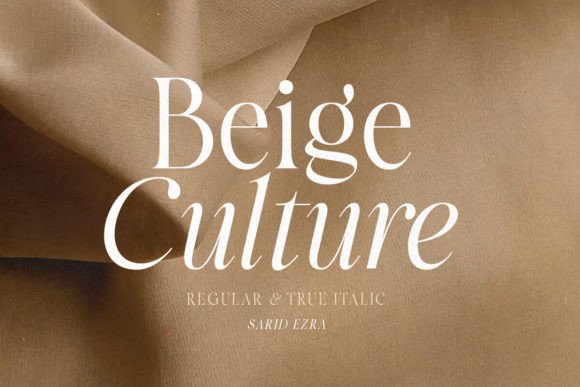
Introducing Beige Culture Font: A Timeless Serif Family with a Modern Twist
In the world of typography, a well-designed font can make all the difference in creating a lasting impression. For those seeking a classic serif font with a modern, luxurious, and glamorous look, Beige Culture Font is an excellent choice. This versatile font family is perfect for a wide range of applications, from wedding invitations and logos to branding and display purposes.
The Characteristics of Beige Culture Font
Beige Culture is a classic serif font family that exudes elegance and sophistication. Its modern design ensures that it remains fresh and relevant, making it suitable for various uses. The font comes with a true italic version, which adds to its versatility and allows users to create a range of visual styles.
Key Features of Beige Culture Font:
- Classic Serif Design: Beige Culture boasts a traditional serif design that evokes a sense of timelessness and luxury.
- Modern and Glamorous Look: The font’s modern twist ensures that it looks fresh and sophisticated, making it perfect for high-end applications.
- True Italic Version: The inclusion of a true italic version adds to the font’s versatility, allowing users to create a range of visual styles.
- Multi-Language Support: Beige Culture supports multiple languages, making it a great choice for global brands and projects.
Use Cases for Beige Culture Font
Beige Culture Font is an incredibly versatile font family that can be used for a wide range of applications. Here are some examples of how you can use this font:
Wedding Invitations and Stationery
Beige Culture’s elegant and sophisticated design makes it perfect for wedding invitations, stationery, and other formal events.
Logo and Branding
The font’s modern and luxurious look makes it an excellent choice for logos and branding projects, particularly for high-end brands and luxury goods.
Display and Headings
Beige Culture’s classic serif design and true italic version make it suitable for display purposes, such as headings and titles.
Why Choose Beige Culture Font?
With so many fonts available, why choose Beige Culture Font? Here are some reasons why this font family stands out:
Timeless Design
Beige Culture’s classic serif design ensures that it remains timeless and relevant, even as design trends evolve.
Versatility
The font’s true italic version and multi-language support make it incredibly versatile and suitable for a wide range of applications.
Luxurious and Glamorous Look
Beige Culture’s modern twist and elegant design make it perfect for high-end applications and luxury brands.
In conclusion, Beige Culture Font is an excellent choice for anyone seeking a timeless serif font with a modern, luxurious, and glamorous look. Its versatility, elegant design, and multi-language support make it suitable for a wide range of applications, from wedding invitations and logos to branding and display purposes. If you’re looking for a classic serif font that exudes sophistication and elegance, Beige Culture Font is an excellent choice.